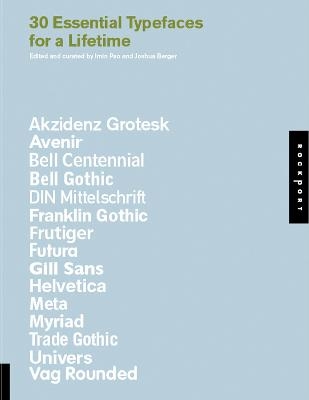
30 Essential Typefaces for A Lifetime
There are thousands of typefaces and more being produced monthly. It is a continual challenge for designers to select the exact typeface best suited for a project. In collaboration with the School of St. Martin, Art Center Pasadena, Rhode Island School of Design, Basel, and Yale Design School, 30 Essential Typefaces for a Lifetime defines 30 of the most useful and classic typefaces for all design needs and occasions. Neville Brody imagined "it takes 10 years for someone to master a typeface." This book contains "typefaces for a lifetime."